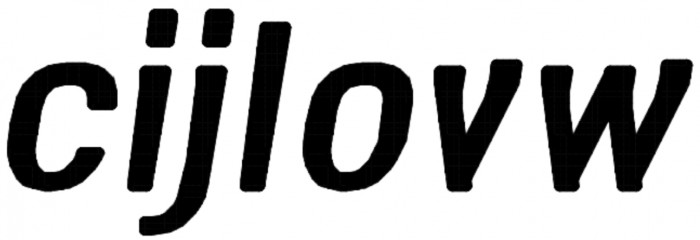
Because NOBODY IN YEARS has made a version of Kapow with all the numbers and accents, so as Thanos would say.... "Fine, I'll do it myself!"
Behold: Kapow Plus Ultra! A complete rework of one of fonstruct's most popular fonts with new tiles for smoother "curvature"; Fully optimized kerning and tracking for usage in comics; And includes all numbers, punctuation, accents, and other characters missing from the original Kapow.
BONUS FEATURES: Mac option symbols supported
Update: Now with extra Manga symbols
i tried to make lowercase versions of this, but some of them didn't look good.
you forgot some of the glyphs from the original one that you removed.
@SUMMER701 good attempt at lowercase letters, you should try making a full set of lowercase alphabet and I might consider making a full lowercase version in the future...
I didn't see much of a point in keeping the extended cyrillic, as I mainly focused on building up the Latin Extended A and Math Symbol blocks, as I am a Mac user.